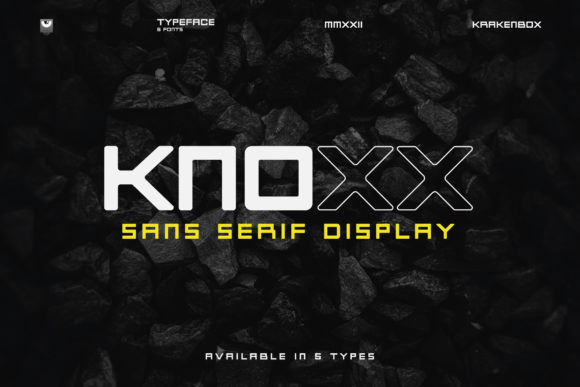
Behold, Knoxx Font - A Masterpiece Unleashing Limitless Creativity
In the realm of web design, where aesthetics and functionality intertwine, Knoxx Font emerges as a radiant star, illuminating your digital creations with its captivating presence. Crafted by the ingenious minds at Krakenboxstudio, Knoxx is a display font that transcends boundaries, transforming ordinary designs into extraordinary masterpieces.
Picture this: a font so visually striking that it commands attention, yet so versatile that it effortlessly adapts to a myriad of creative endeavors. Knoxx Font is your ultimate companion, whether you're crafting elegant cards, forging unforgettable brands, or designing eye-catching labels. Unleash your imagination and let Knoxx elevate your designs to new heights.
With its bold, squared letters, Knoxx radiates a sense of strength and confidence, leaving an indelible mark on your audience. Each meticulously crafted character exudes a timeless charm, ensuring that your designs stand the test of time. Dive into a world of boundless possibilities, where Knoxx becomes the cornerstone of your visual storytelling, captivating your audience with its inherent elegance.
Step into the spotlight and let your creations shine with Knoxx Font. Add it to your design arsenal with unwavering confidence, knowing that it will transform your projects into works of art. Prepare to be astounded by the sheer brilliance of the outcomes, as Knoxx breathes life into your designs, leaving a lasting impression that resonates with your audience.